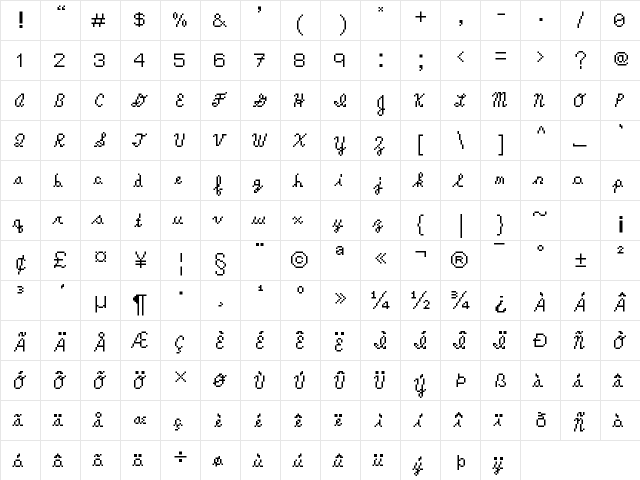
americancursive Medium
Design Context for americancursive Typeface
americancursive flows with the natural rhythm of handwritten lettering, making it ideal for designs that call for warmth and personal expression.
Font Pairing: Combine americancursive with a simple geometric sans for maximum contrast — the tension between flowing curves and clean structure is a classic typographic pairing.
Pro Tip: Pair americancursive with a clean sans-serif for supporting text. The contrast between fluid script and geometric structure creates an elegant typographic hierarchy.